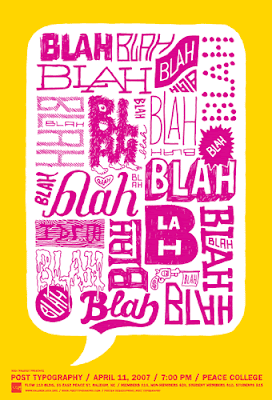
Today I finally got to work on the first prompt, which I had alot of fun doing. It made me think in many way, like what is it I really like/enjoy, and it also made me focus on different ways of writing the words. I tried to go the distance and get fun on some of the stuff I wrote. So here is my Inspiration Poster:
And here is my take on it:
*click on image to enlarge.I used my favorite Micron pens in all different sizes, also my trusty Sharpie, some paint and my newest buy.....................my Crayola markers.
I love how you mixed this yellow with orange, the photo and the lettering!
great job on the type! and i love the painted background.
patty, you are too cute! i love all the different fonts doodled in the caption block! way cool!
I love that picture & all the different doodling.